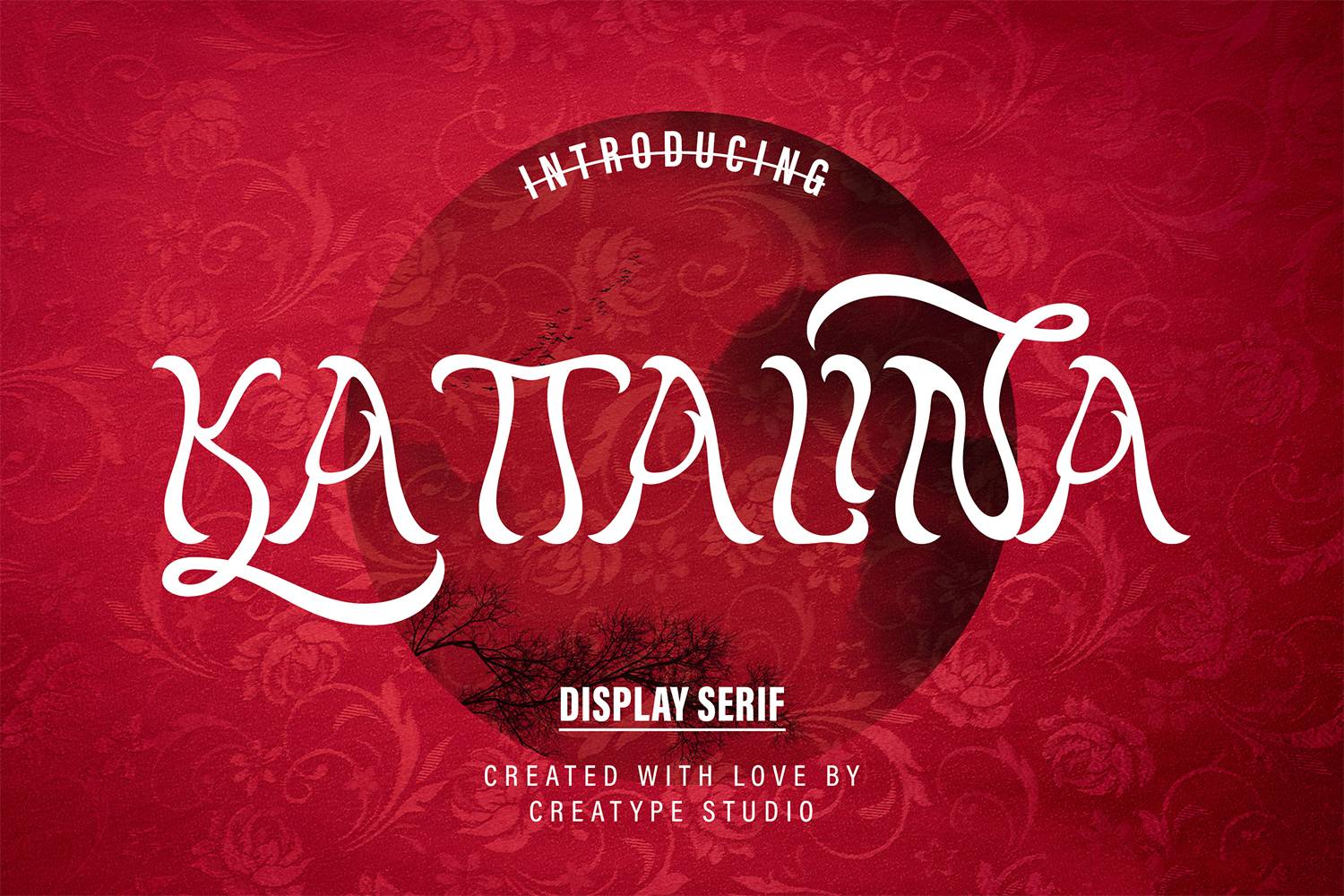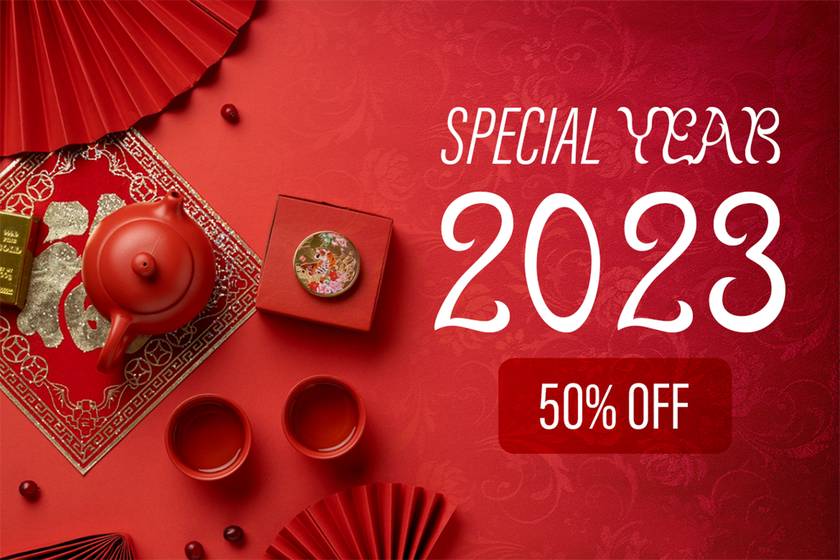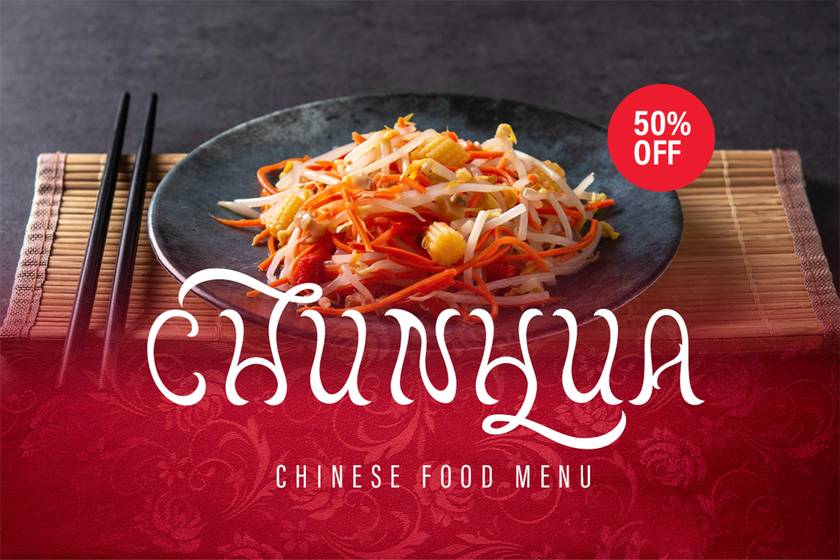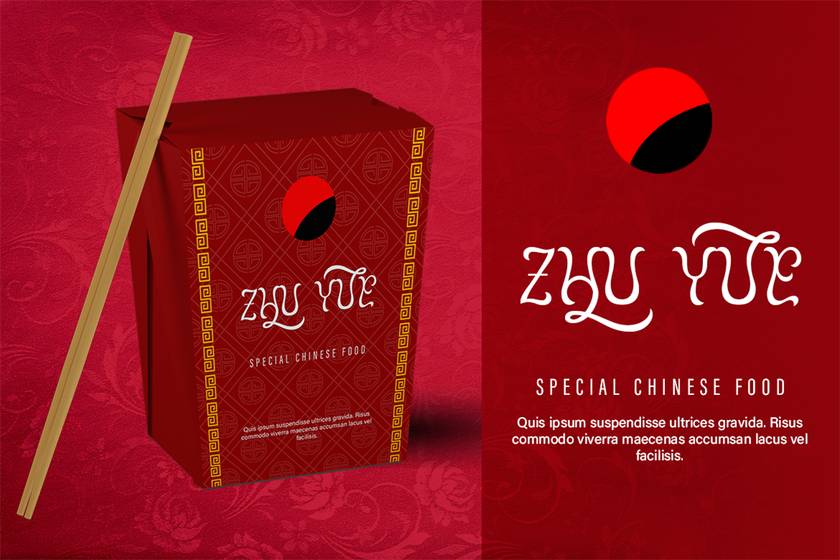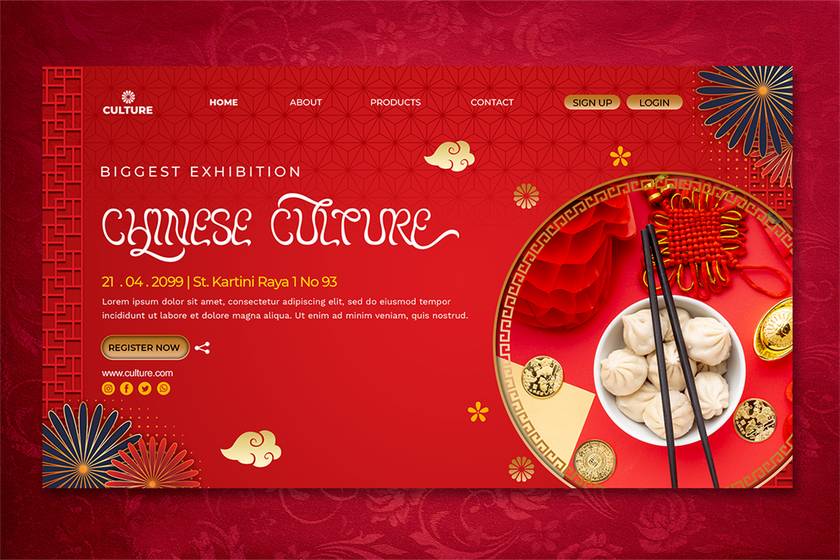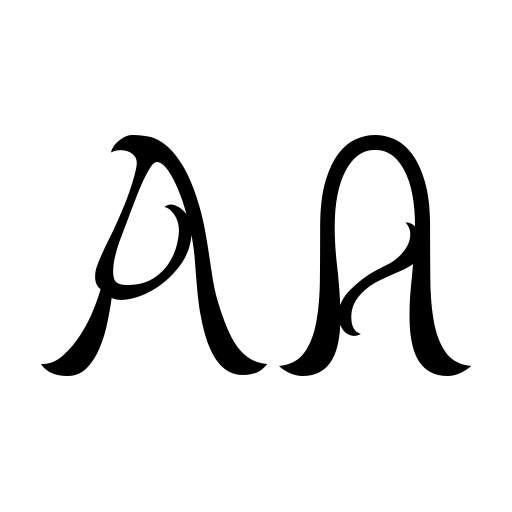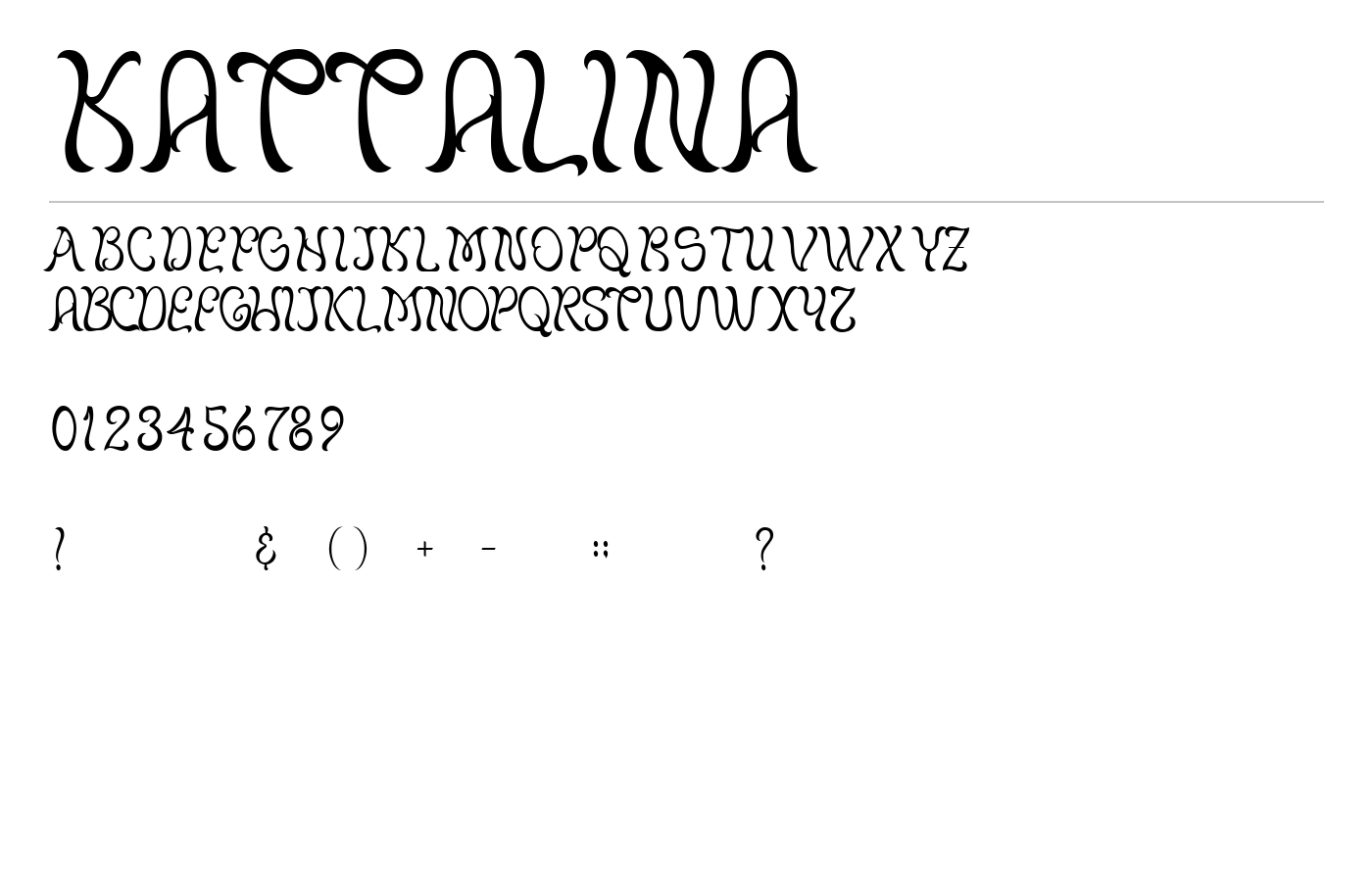
Kattalina is a decorative serif font featuring elegant, elongated letterforms with a whimsical, vintage flair. Its high contrast and delicate curves offer a playful yet classy personality, making it ideal for invitations, fashion branding, and artistic logos where a unique, sophisticated touch is desired. This font stands out in headlines and display use, adding charm and character to any creative project.
Kattalina Font
About Kattalina Font